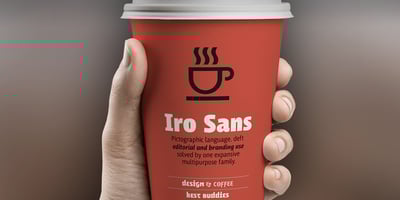
LFT Iro Sans Font Family was designed by Leftloft and published by TypeTogether. LFT Iro Sans contains 40 styles and family package options. Milan-based Leftloft studio developed LFT Iro Sans, an expansive family that solves the significant, wide-ranging challenges of branding, wayfinding, pictographic language, and complex editorial use. LFT Iro Sans began as the clear and welcoming wayfinding project of San Siro stadium in Milan. Over time many other styles and weights have been added. LFT Iro Sans never finds itself outmatched by the task at hand. The primary aim was to design a technical typeface that was readable in any low visibility condition, for instance in a poorly lit area with awkward wall shapes and overhangs. This worked well for stadium and large lettering use, but other problems also needed to be addressed, such as complementary iconography. A location developer was left mixing — clashing, really — one type family with a different family of icons, resulting in a cobbled-together look which diluted the brand and the experience. They set out to radically simplify and clarify each shape and its meaning, accepting uniqueness as part of the final visual language. LFT Iro Sans pictograms answers the need for having a consistent and large group of icons, perfectly suited to the text typeface. As it concerns public spaces, this didn’t exist before. LFT Iro Sans incorporated a branding project too, so they decided to let LFT Iro Sans go out on a limb and created a unicase style that demands attention. Each unicase letter is a combination of the lowercase and capital form, quite noticeable in the ‘i’, ‘m’, ‘t’, and unique ‘d’ and ‘b’, balanced by more restrained forms of ‘a’, ‘s’, ‘c’, and ‘e’. LFT Iro Sans is not only a technical typeface, but, thanks to letters’ proportions, can also be used for editorial purposes. Assertive and economical in stature, the text weights are clear and assured. And a display version for headlines in Ultralight and Heavy (with italics) was developed for stunning headlines. For enthusiasts of every stripe, LFT Iro Sans can be a brand’s rallying cry with its arresting unicase, be a developer’s go-to pictogram choice, or set the most demanding editorial text in digital or print. With its many OpenType features, simplified pictogram commands (even available in Apple’s Pages and Microsoft Word), and a total of 30 targeted family members, LFT Iro Sans is a brilliant, easy choice. As with the rest of the TypeTogether catalogue, the complete LFT Iro Sans family, designed by Lefloft and developed by Octavio Pardo, has been optimised for today’s varied screen uses.